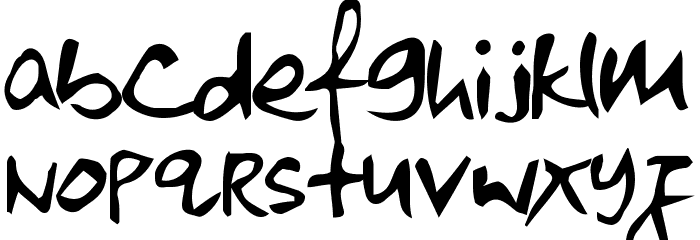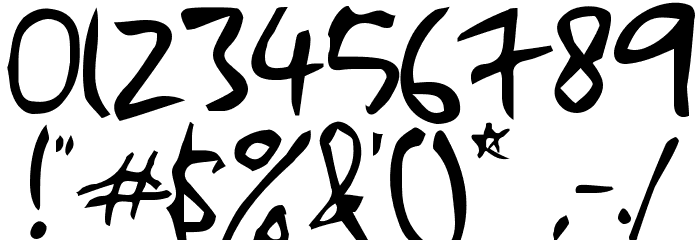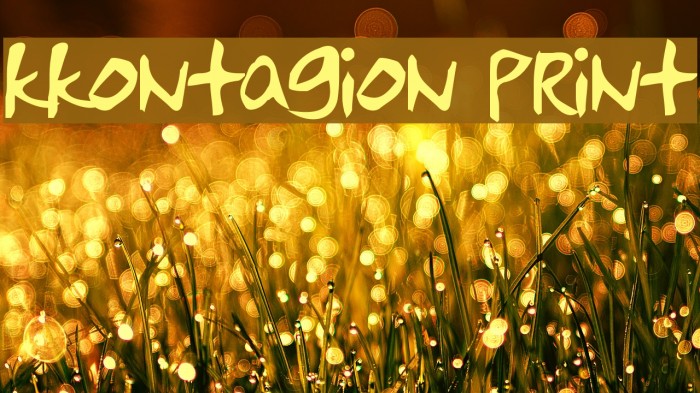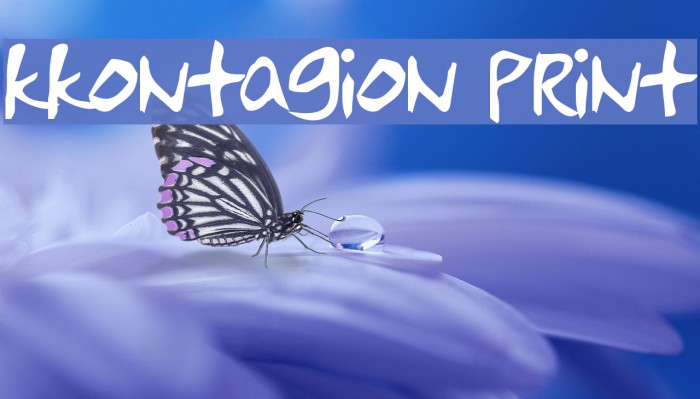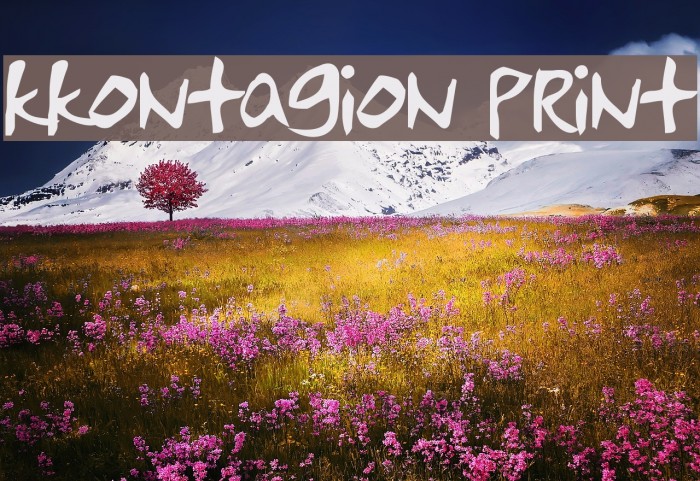
kkontagion print Font
This font exhibits a bold and expressive handwritten style, characterized by its dynamic and irregular strokes. The letters have a playful and energetic appearance, with varying thicknesses that create a sense of movement and spontaneity. The uppercase and lowercase letters maintain a consistent style, with some letters featuring exaggerated curves and angles. The numbers and special characters follow the same lively aesthetic, making the font suitable for creative and informal applications. Its unique style stands out, making it ideal for projects that require a personal touch or a sense of individuality.
A bold, expressive handwritten font with dynamic and irregular strokes.
- Proposed Projects: Ideal for greeting cards, posters, artistic projects, and branding that requires a personal touch.
- Use Case: Headlines, Logos, Artistic projects